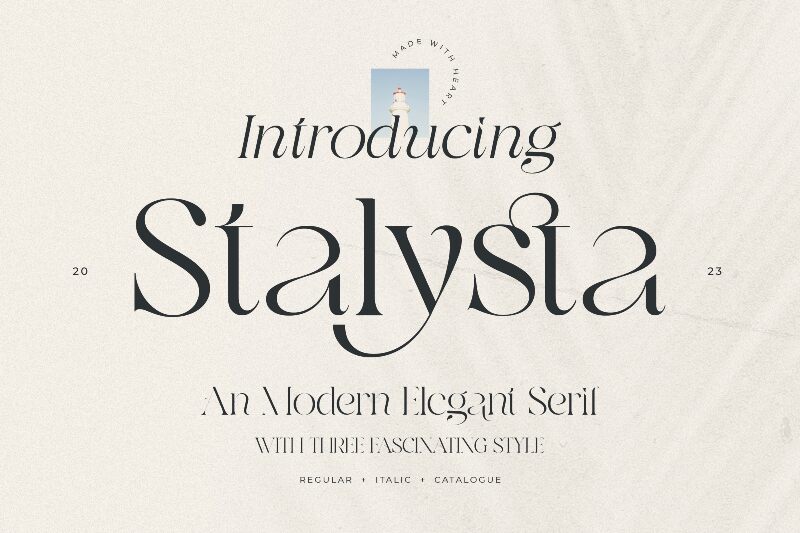
Staylista font by Lettersiro Studio is a beautiful modern serif typeface suitable for all sorts of design projects. Its elegant and sophisticated design has artistic flair and a harmonious flow that captivates the eye along with its delicate proportions and curves. Use Staylista in your creations to elevate them, take advantage of the alternates and the ligatures, or simply enjoy its charm as it is.
This free serif font is well suited for weddings, garment branding, websites, magazine covers, logos, social media quotes or captions. It would also look great on business cards, flyers, posters or letterheads among other things.